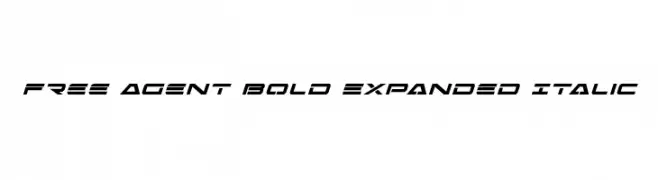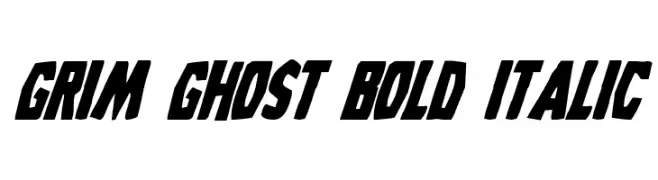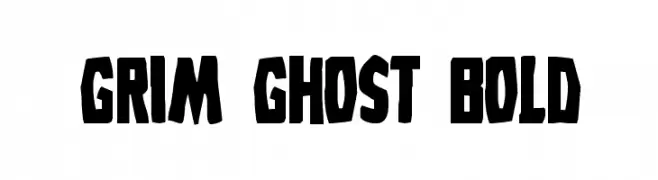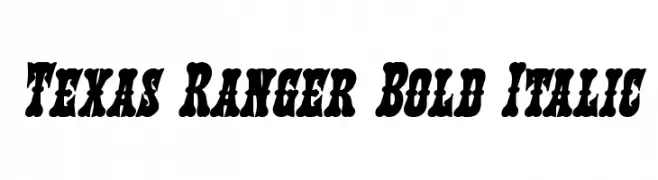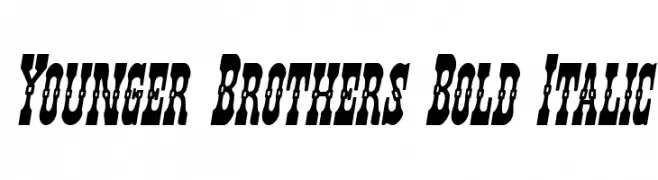
A bold, italic, decorative typeface with a dynamic and energetic style.
A bold, italicized decorative font with a vintage Western style.
A bold, Western-inspired font with thick, decorative serifs.
A bold, expanded, and italicized font with a futuristic and angular design.
A bold, 3D font with angular lines and a shadowed effect for depth.
A bold, italicized font with a rugged, textured appearance.
A bold, geometric font with sharp angles and smooth curves.
A bold, rugged font with a hand-drawn, ghostly appearance.
A bold, italicized font with a dynamic and energetic style.
A bold, italicized font with sharp angles and a dynamic presence.